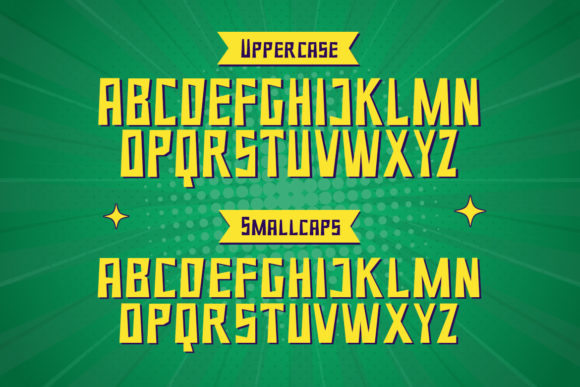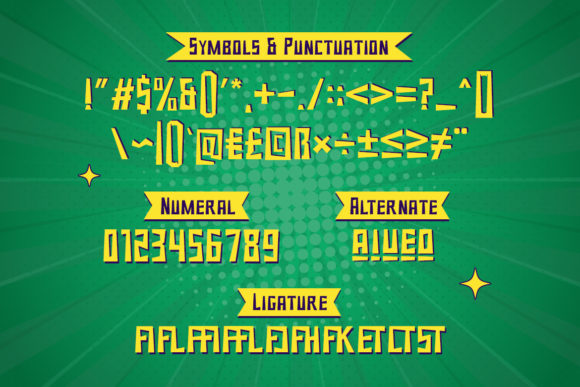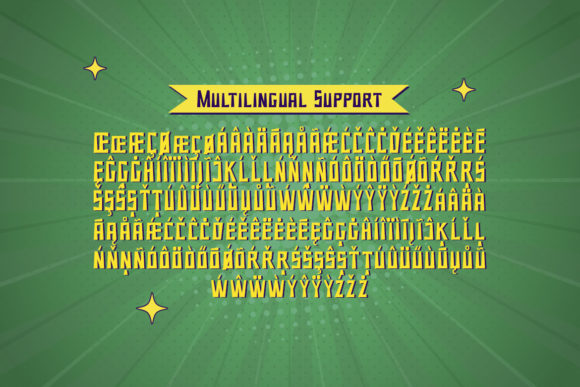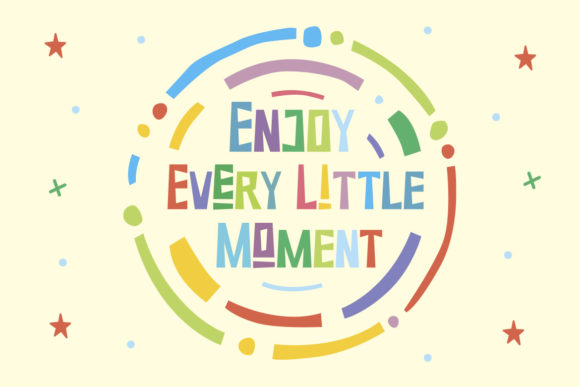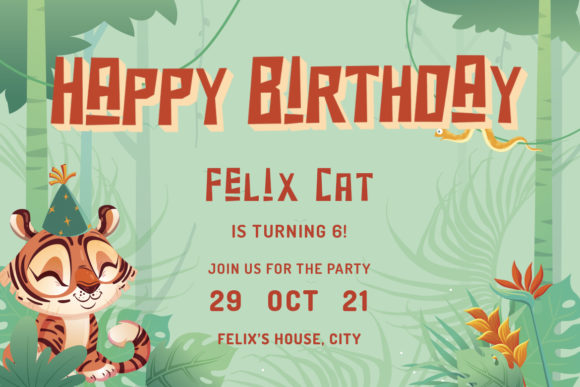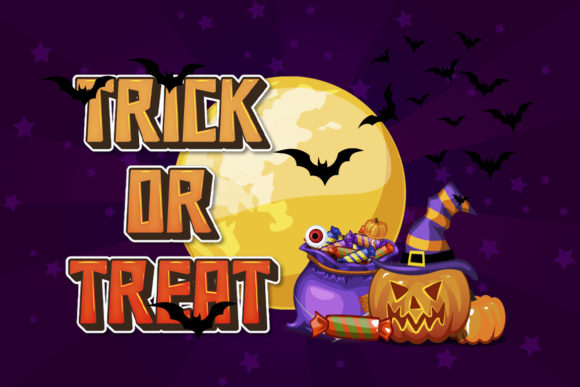
Introduction to Shocked Up Font Font
Fonts play a crucial role in design, and the Shocked Up Font font is a typeface that brings both character and versatility to any project. Whether you’re working on a branding project, a website, or a print design, the Shocked Up Font font offers a unique style that can elevate your work.
Shocked Up is a cute and fancy display font.
It embodies playfulness and authenticity and is the perfect choice for any children activity, game font, party invitation, or school project Add this chunky lettered font to your designs and notice how it makes them come alive.
Key Features of Shocked Up Font Font
Why Choose Shocked Up Font Font?
The Shocked Up Font font is more than just a typeface – it’s a design tool that helps you communicate your message with style and clarity. Its unique character set and versatile design make it suitable for a wide range of applications, from elegant invitations to bold headlines.
With its carefully crafted letterforms and balanced proportions, the Shocked Up Font font ensures readability and visual appeal across all mediums.
What makes Shocked Up Font font special?
The Shocked Up Font font stands out with its unique design, exceptional readability, and versatility across various design applications.